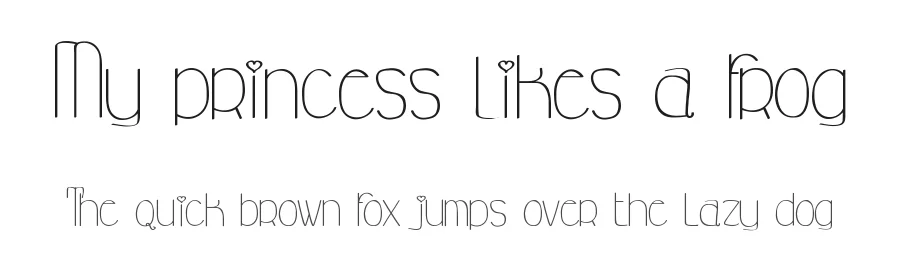
About Chira Shadow Font
Chira Shadow is a decorative font designed by Mattia Donati. It includes 96 glyphs, a regular weight, and OTF (CFF) format. Chira Shadow is free to download; check the license details on this page before commercial use. Decorative fonts like Chira Shadow work best for logos, posters, packaging, and standout headlines.
Chira Shadow Font is a decorative font that shines as a display or heading face. Pair it with a clean sans-serif or serif font for body text — the contrast creates a clear hierarchy while the two styles stay balanced and easy to read.